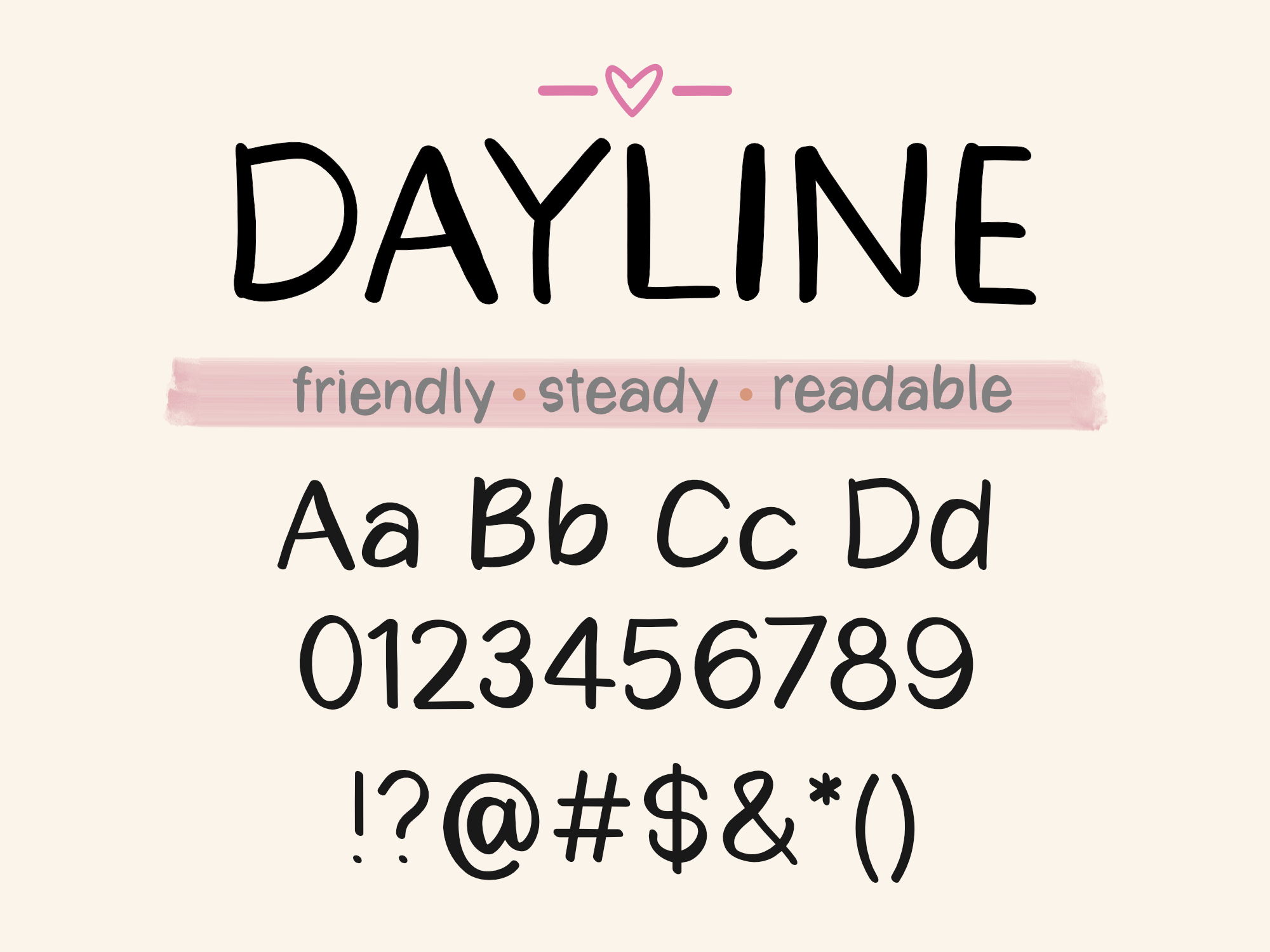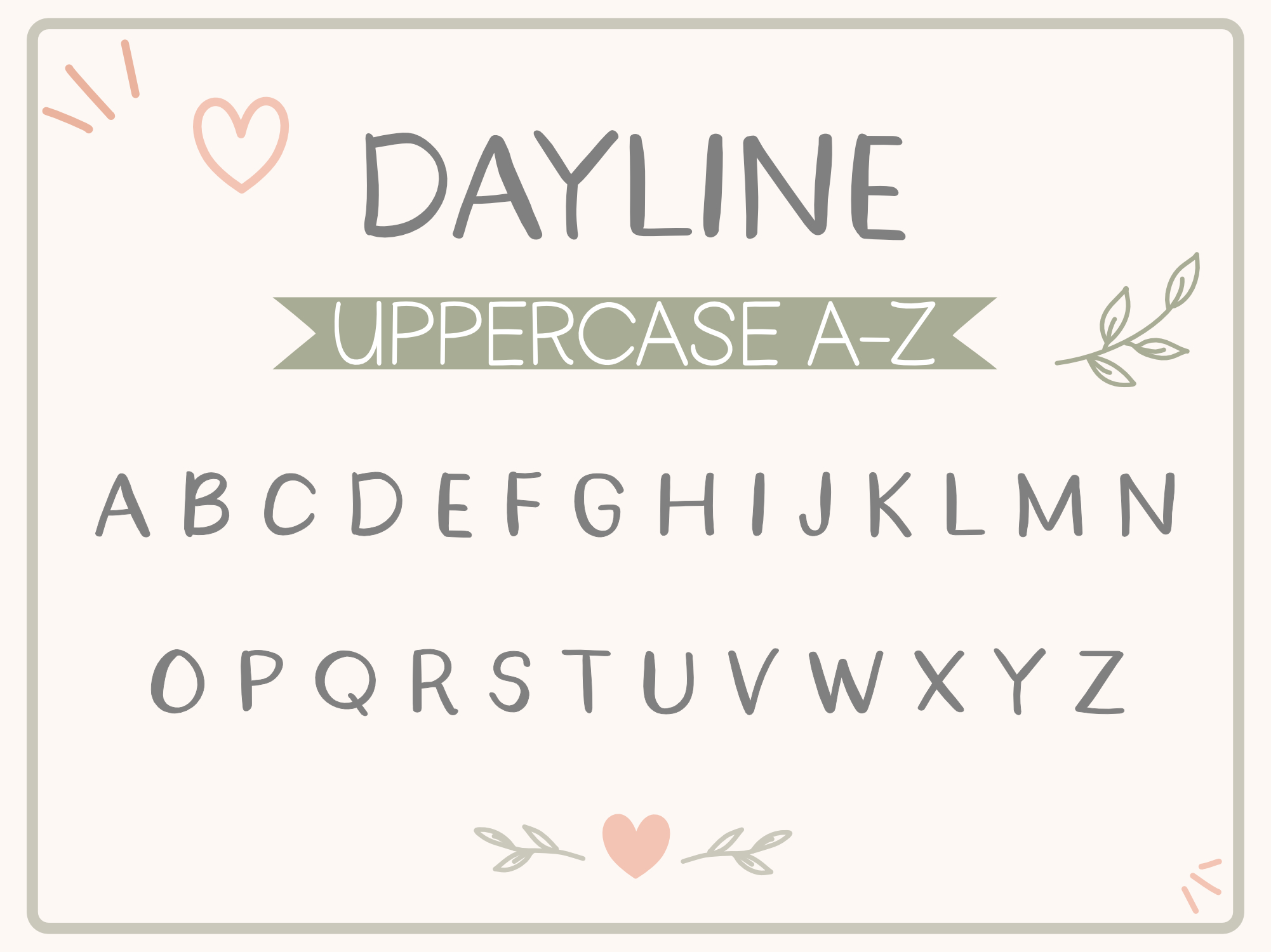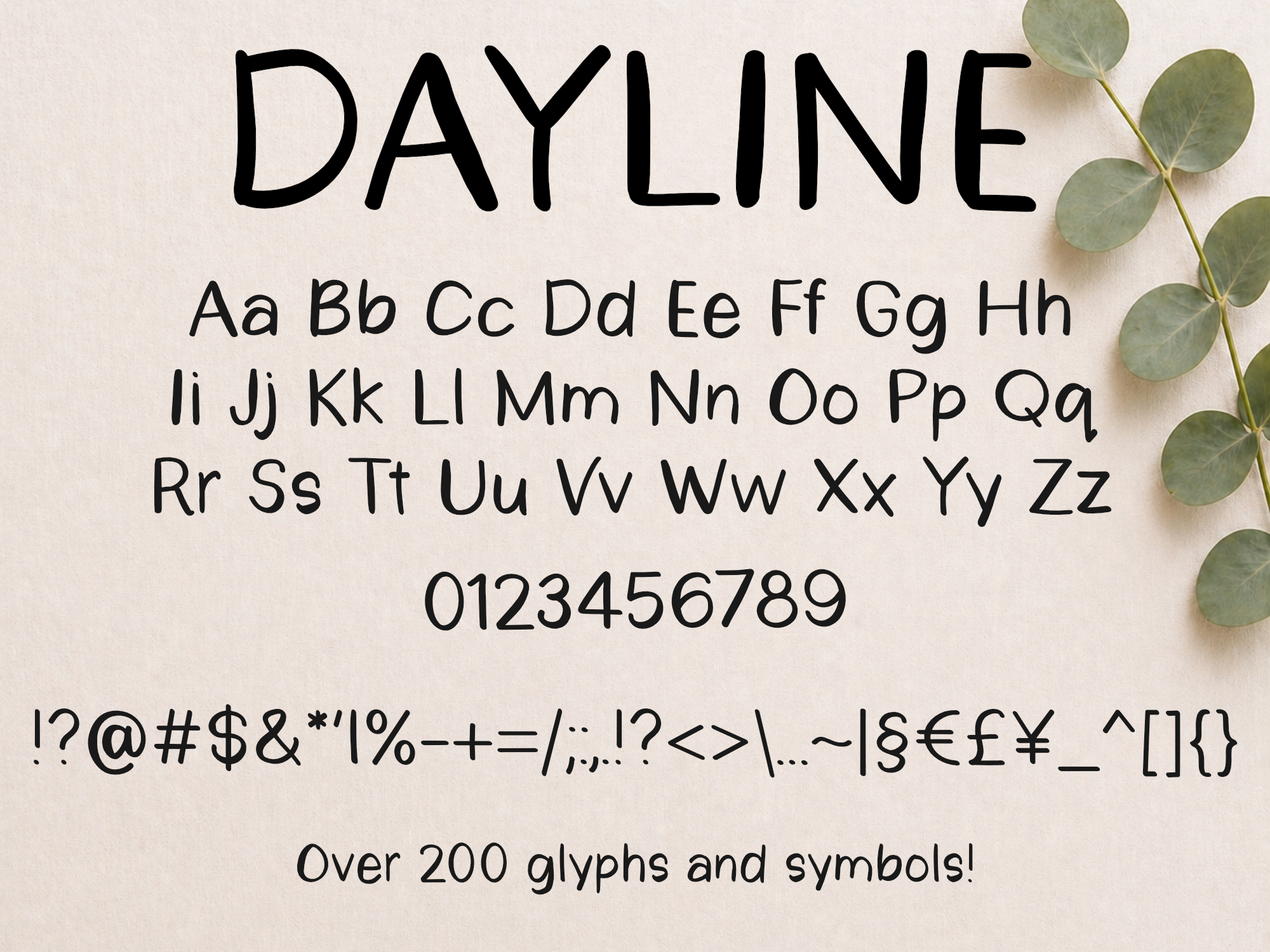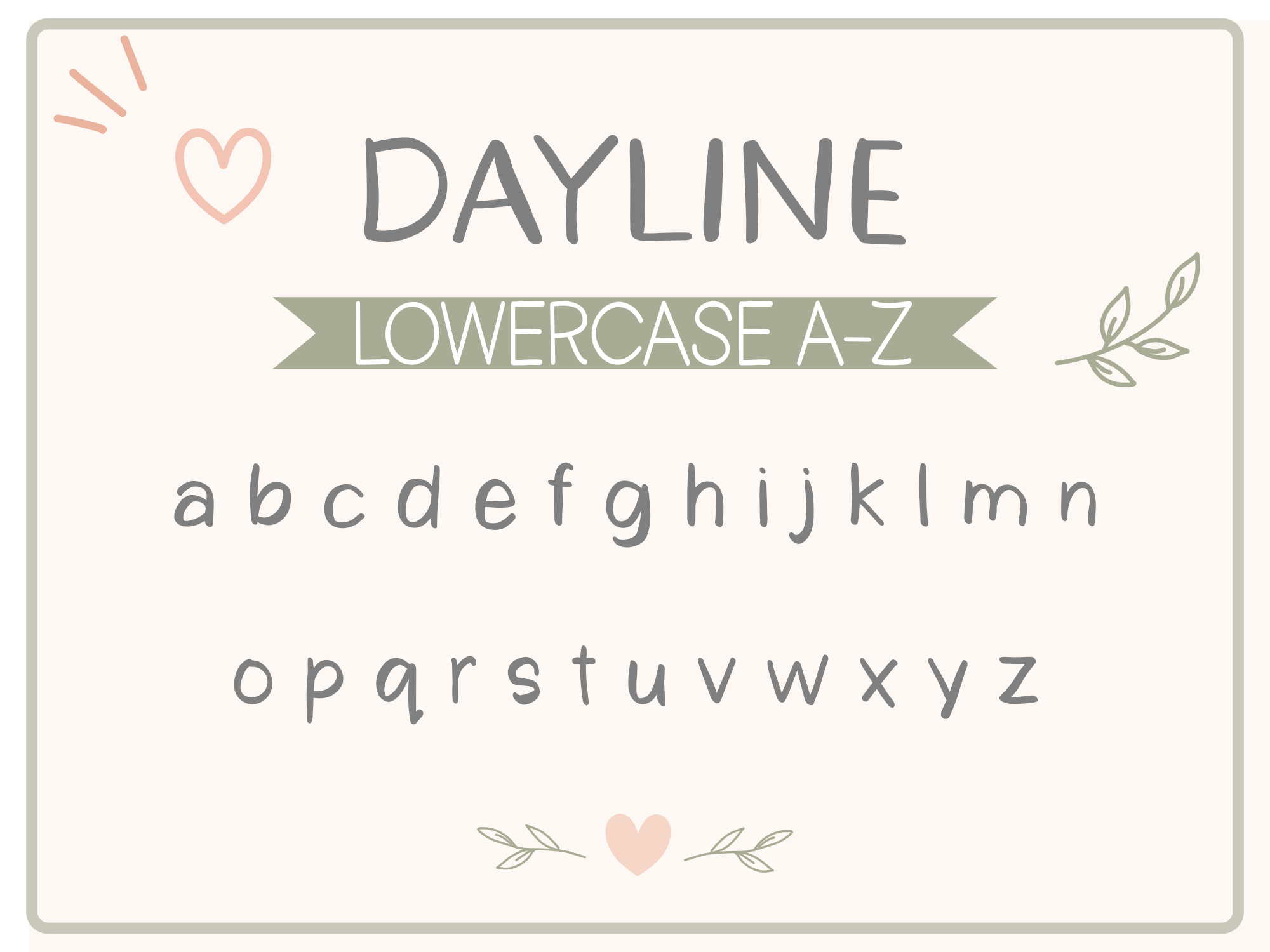
Dayline Font
Friendly. Steady. Readable
Dayline is a clean, handwritten print font designed for everyday use. It keeps a natural, relaxed feel while staying neat and easy to read across a wide range of projects.
The letterforms are slightly rounded with a steady rhythm, giving it a friendly, approachable look without feeling messy or overly stylized. It works especially well where you want handwriting that still feels organized and consistent.
Dayline includes a full set of uppercase and lowercase letters, numbers, punctuation, and extended characters, making it a reliable choice for both personal and commercial work.
Perfect for:
• Planners and journals
• Teacher resources
• Labels and organization
• Social media graphics
• Packaging and stickers
• Logos and small business branding
• Printables and digital products
• Uppercase and lowercase letters
• Numbers and punctuation
• Symbols and special characters
• Standard multilingual support (as shown in previews)